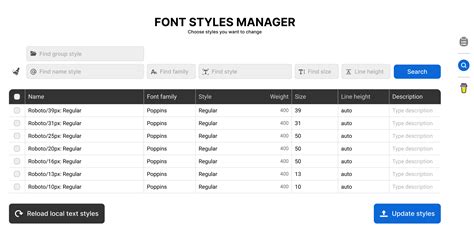
Effortless Font Changes In Figma
Hey everyone, today we’re diving into something super useful for all you designers out there: how to change fonts in Figma ! Seriously, guys, mastering this can totally level up your designs, making them pop and feel just right. Whether you’re a seasoned pro or just starting your design journey, understanding font management in Figma is key. We’ll cover everything from applying new fonts to your text layers, exploring the massive library of fonts available, and even how to manage custom fonts. So, grab your favorite beverage, settle in, and let’s make your text look absolutely amazing!
Applying Fonts to Your Text
So, you’ve got your design laid out, but the default font just isn’t hitting the mark, right? No worries! Changing fonts in Figma is a breeze. First things first, select the text layer you want to modify. You’ll see a few options appear in the right-hand sidebar, and one of them is the font family selector. Click on that bad boy, and a whole world of typography opens up! You can scroll through the list, which is usually organized alphabetically, or if you know the name of the font you’re after, just start typing it into the search bar. It’s like magic! Once you find the perfect font, simply click on it, and boom – your text instantly transforms. It’s that simple, guys. You can experiment with different weights and styles (like regular, bold, italic) right there too, usually found just below the font family selector. This immediate visual feedback is what makes Figma so awesome for rapid design iterations. Don’t be afraid to play around; the undo button is your best friend if you want to go back. Remember, the right font can completely change the mood and readability of your design, so take your time and pick something that truly represents your brand or message. We’ll delve into more advanced font management later, but for now, just focus on getting those initial changes made. It’s all about making your text work for your design, not against it. Think about the hierarchy you want to establish – bolder fonts for headlines, lighter ones for body text, and perhaps a more decorative font for accents. This initial step is the foundation for all your typographic decisions.
Exploring Figma’s Font Library
One of the coolest things about changing fonts in Figma is the sheer volume of options at your fingertips. Figma integrates seamlessly with your system fonts, meaning any font installed on your computer is readily available within the platform. But that’s not all! Figma also has a built-in integration with Google Fonts, which is an absolute goldmine for designers. To access this incredible resource, when you click on the font selector, you’ll see an option to browse Google Fonts. Clicking this opens up a preview window where you can explore thousands of high-quality, free-to-use fonts. You can filter by category, popularity, or even style to find exactly what you’re looking for. Found one you love? Just click the ‘Enable’ button next to it, and it will be added to your Figma font list. It’s an incredible way to expand your design palette without needing to install anything extra on your machine. Seriously, guys, this is a game-changer. You can preview how each font looks with your text right there in the selector, which saves so much time. Remember that Google Fonts are designed for web use, meaning they are optimized for screen readability and performance. This makes them an excellent choice for UI/UX design projects. Don’t just stick to the defaults; use this vast library to inject personality and professionalism into your work. Think about the context of your project – is it a playful app, a serious corporate website, or a minimalist portfolio? The font you choose should align with these considerations. The ability to easily access and preview these fonts within Figma streamlines the entire design process, allowing you to make informed typographic decisions quickly and efficiently. It’s a powerful tool that empowers you to create visually stunning and effective designs.
Using Google Fonts Effectively
Now that you know how to access the vast library of Google Fonts within Figma, let’s talk about using them effectively. Changing fonts in Figma is one thing, but choosing the right font is another. When you’re browsing Google Fonts, don’t just pick something because it looks cool at first glance. Consider the readability of the font. Is it easy to read at smaller sizes? This is crucial for body text and UI elements. Look for fonts with clear letterforms and good spacing. Next, think about the personality of the font. Does it convey the right tone for your brand or project? A playful, rounded font might be perfect for a children’s app, but it would likely be out of place on a financial report website. Conversely, a formal, serif font might lend authority to a legal document but could make a casual blog feel stuffy. Pairing fonts is also a key skill. Often, you’ll want to use two different fonts – one for headings and another for body text. Good pairings usually involve contrasting fonts that complement each other. For example, a sans-serif font for headings might pair well with a serif font for body text, or vice versa. Google Fonts makes it easy to preview these pairings. Experiment with different combinations until you find something harmonious. Remember, consistency is key. Once you’ve chosen your fonts, stick with them throughout your design. Figma’s component system and styles features can help you maintain this consistency. Don’t forget about licensing – while Google Fonts are generally free for commercial use, it’s always good practice to be aware of the terms. By thoughtfully selecting and applying fonts from the Google Fonts library, you can significantly enhance the aesthetic appeal and user experience of your designs, making your work stand out and communicate more effectively.
Managing Custom Fonts
Sometimes, the perfect font for your project isn’t available in your system fonts or Google Fonts. Maybe it’s a unique brand font or a special typeface you purchased. Changing fonts in Figma with custom fonts is totally doable, but it requires a little extra step. You need to make sure the custom font is installed on your computer first . Once it’s installed, Figma should automatically recognize it. Just like with other fonts, select your text layer, click the font selector in the right sidebar, and your newly installed custom font should appear in the list, ready for you to use. If, for some reason, it doesn’t show up immediately, try restarting Figma. Sometimes, the application needs a refresh to pick up new system fonts. For collaborative projects, this is super important, guys! Everyone working on the file needs to have the same custom font installed on their machine for it to display correctly. Otherwise, Figma will substitute it with a default font, which can mess up your carefully crafted layouts. To avoid this, you can use Figma’s built-in font helper application, which helps manage local fonts and ensures consistency across team members. It’s a really handy tool for keeping everyone on the same page, literally! When you’re adding custom fonts, ensure you have the proper licenses to use them, especially for commercial projects. Respecting font licensing is crucial in the design world. By correctly installing and managing your custom fonts, you ensure your designs are consistent, professional, and exactly as you intended them to be, regardless of where the file is being viewed or edited. It empowers you to use those unique typefaces that truly define your brand identity.
Best Practices for Font Management
Alright guys, let’s wrap up with some best practices for font management in Figma when you’re changing fonts in Figma . First off, consistency is king . Establish a typographic hierarchy early on. Decide which fonts you’ll use for headings, subheadings, body text, and captions, and stick to it. Use Figma’s Text Styles feature to save these settings. This way, you can easily apply consistent typography across your entire project, and if you ever need to make a global change (like updating a brand font), you only have to do it once in the style definition. Secondly, prioritize readability . No matter how fancy a font looks, if your users can’t easily read your text, your design has failed. Test your fonts at different sizes and on different screens. Sans-serif fonts are generally preferred for UI design due to their clean appearance on screens, but serif fonts can add a touch of elegance or authority when used appropriately. Thirdly, consider font pairing . As we touched on earlier, combining fonts can add visual interest, but it’s easy to get wrong. Aim for contrast rather than conflict. A common strategy is to pair a serif with a sans-serif. Finally, optimize for performance . Use fonts that are web-optimized, especially for digital products. Google Fonts are a great starting point. Avoid using too many different fonts in a single design; typically, two or three font families are sufficient. Overloading your design with various typefaces can make it look cluttered and unprofessional. By implementing these best practices, you’ll not only make changing fonts in Figma a smoother process but also ensure your designs are visually appealing, user-friendly, and professional. Happy designing!